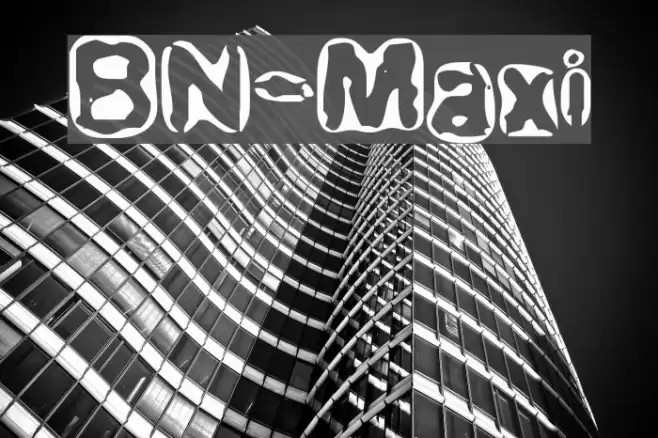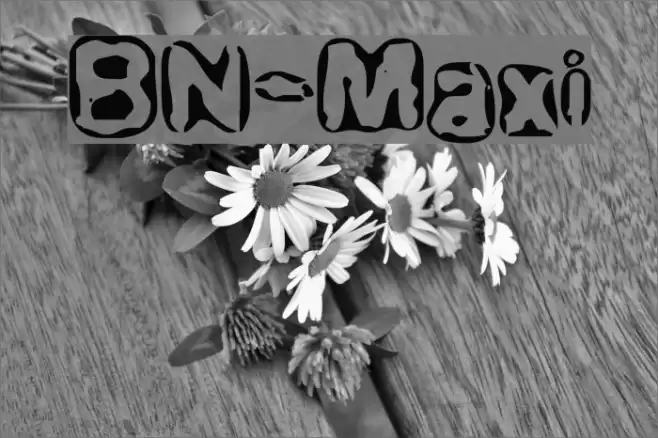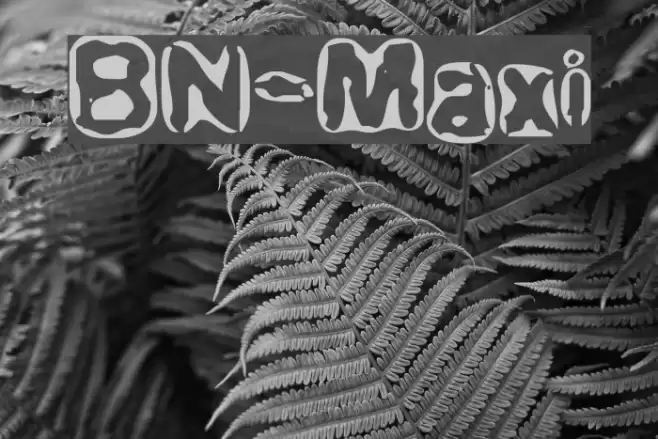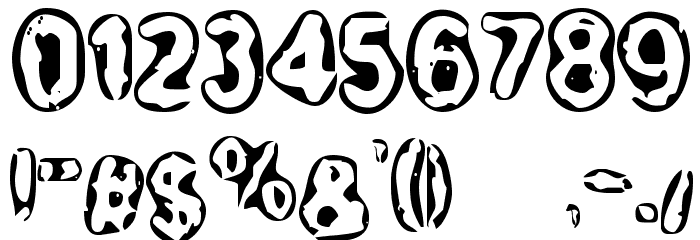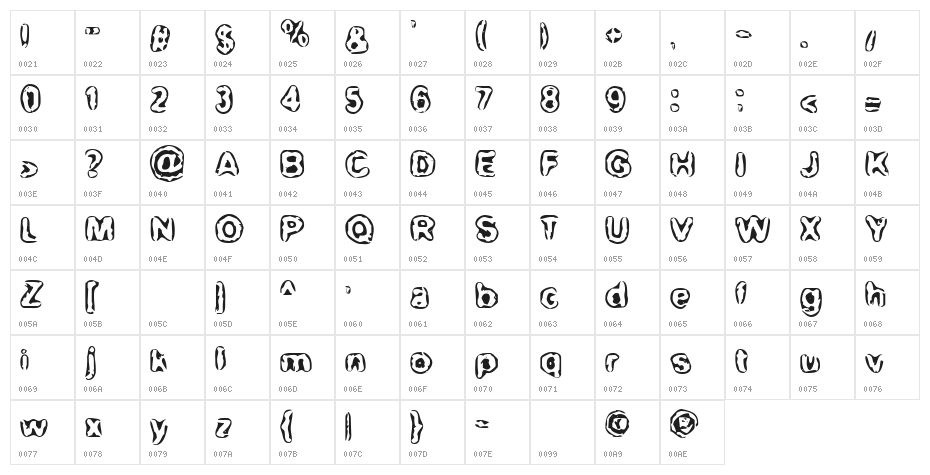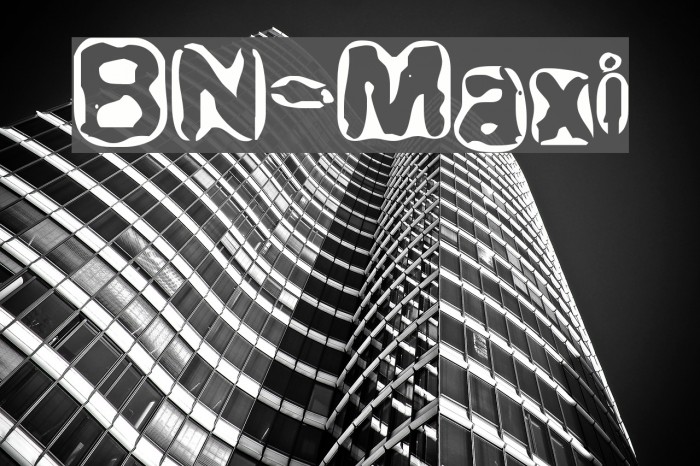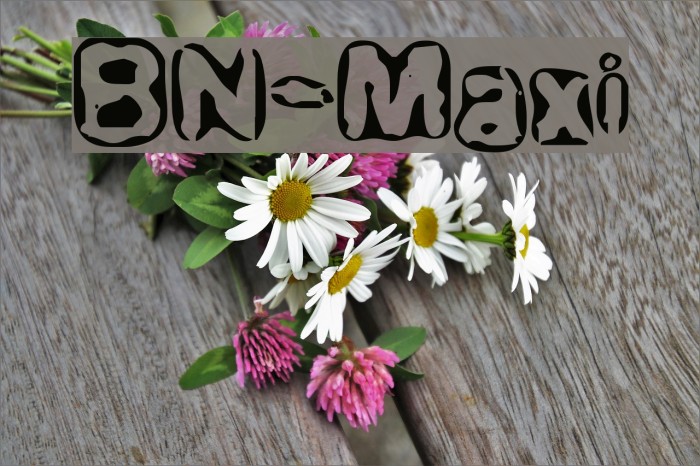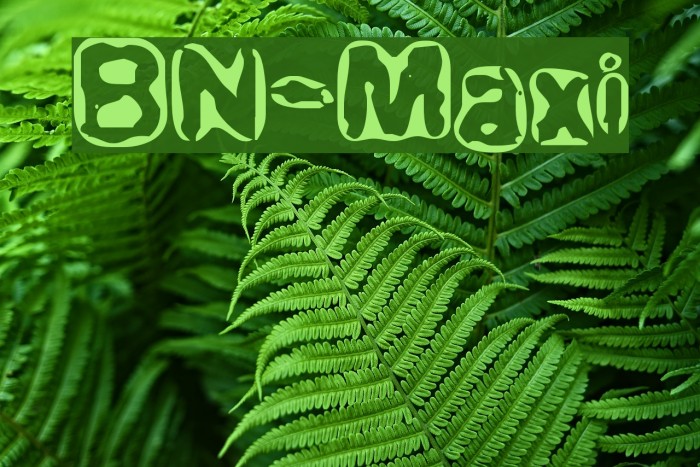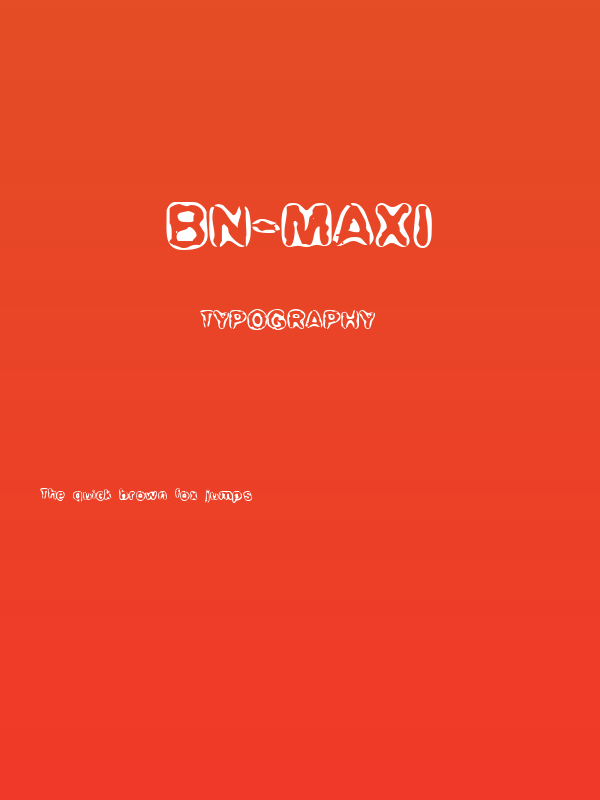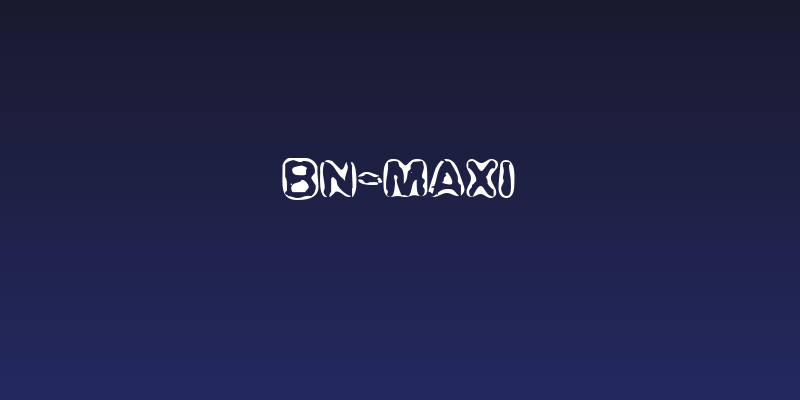
BN-Maxi Font
BN-Maxi Description
This font features a bold and playful design with a unique, irregular pattern that resembles splatters or ink blots within each character. The letters are rounded and have a substantial presence, making them highly visible and attention-grabbing. The uppercase and lowercase letters maintain a consistent style, with the lowercase being slightly smaller but equally bold. Numbers and special characters follow the same design principles, ensuring uniformity across all elements. The font's distinctive style makes it ideal for creative and unconventional projects, where a strong visual impact is desired.
A bold, playful font with an irregular, splattered pattern within each character from Crazy fonts.
- Proposed Projects: Ideal for posters, album covers, children's books, and any project requiring a bold, artistic touch.